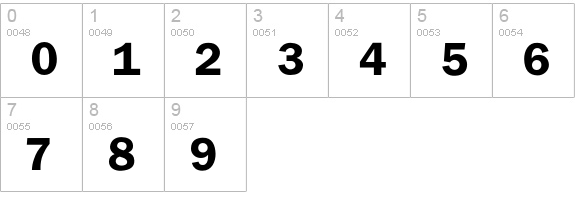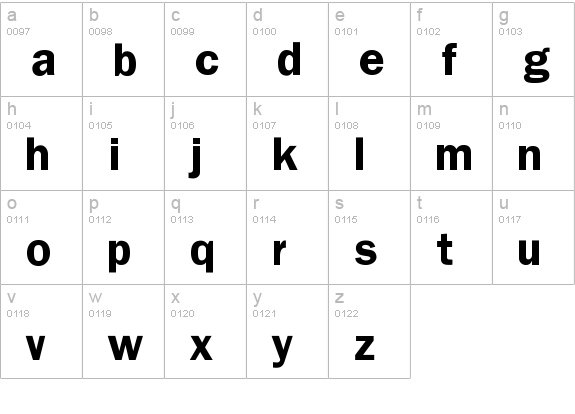
FranklinDemi Font Details
FranklinDemi is a versatile and modern font that exudes confidence and sophistication. With its sleek lines and bold weights, this typeface is perfect for creating impactful designs that demand attention. Whether you're working on a logo, poster, or website, FranklinDemi will add a touch of elegance and professionalism to your project. What's even better is that FranklinDemi is free to download at FontsMarket.com. This means you can access this stylish font without any cost, making it a valuable addition to your design toolkit. Don't miss out on the opportunity to elevate your designs with FranklinDemi - download it today and see the difference it can make!